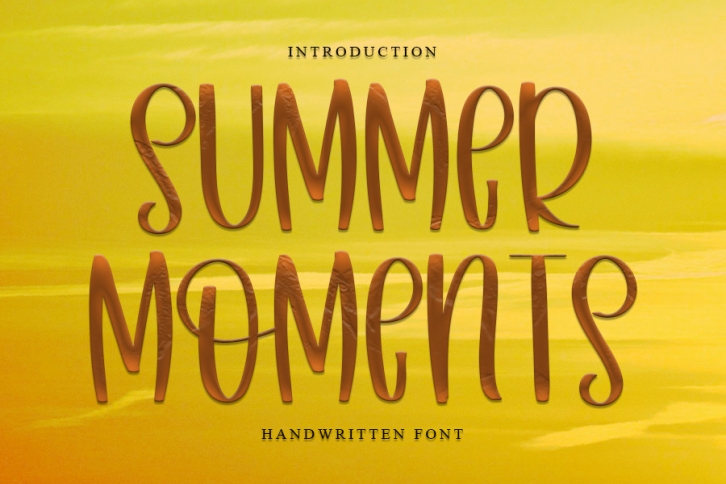
Summer Moments is a tall and fun script font. Incredibly versatile, this font fits a wide pool of designs, elevating them to the highest levels. Add this font to your favorite creative ideas and notice how it makes them come alive!